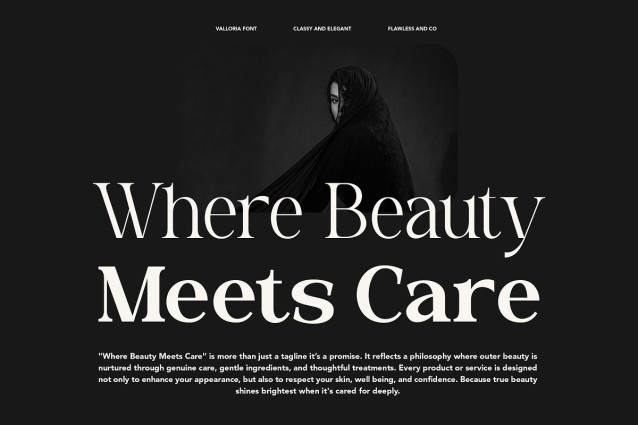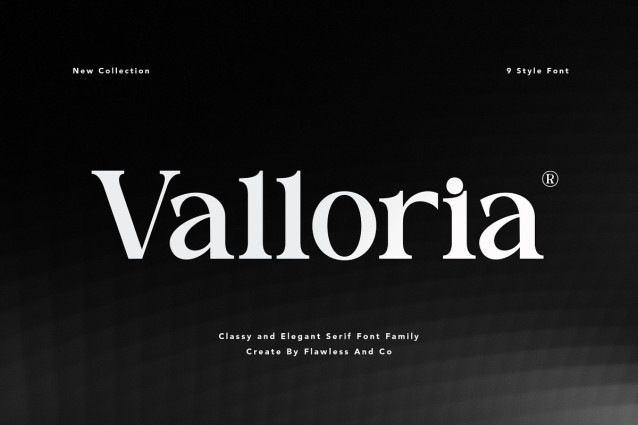
Valloria Font
Valloria Font is a classy and elegant serif font family, crafted to bring sophistication and timeless charm to your design projects. With its refined letterforms, balanced proportions, and versatile styles, Valloria captures the perfect harmony between modern elegance and classic beauty. This font family is designed to elevate branding, editorial layouts, luxury packaging, and high-end presentations. From fashion magazines to jewelry branding, Valloria communicates prestige, professionalism, and refined taste. With nine versatile styles, it adapts seamlessly to both bold headlines and graceful body text, making it a complete typographic solution.